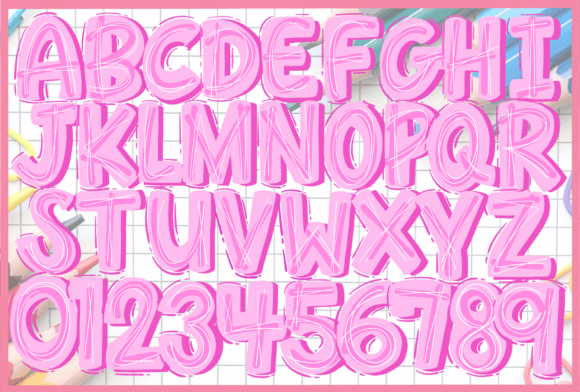
Abcd My Teacher Font
ABCD My Teacher is a cheerful and colorful display font designed especially for educational and kid-focused projects. With bold bubble letters outlined by playful hand-drawn strokes, this font feels like a fun doodle on a classroom chalkboard. Its multicolor style and energetic curves make it perfect for school posters, teacher resources, classroom decor, activity sheets, and educational games.
Whether you’re designing for back-to-school season or playful learning materials, ABCD My Teacher brings creativity and joy to every letter.